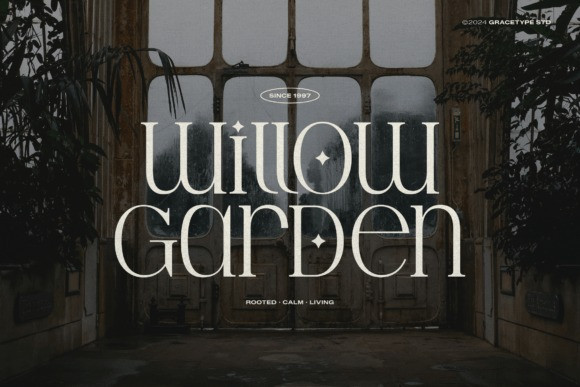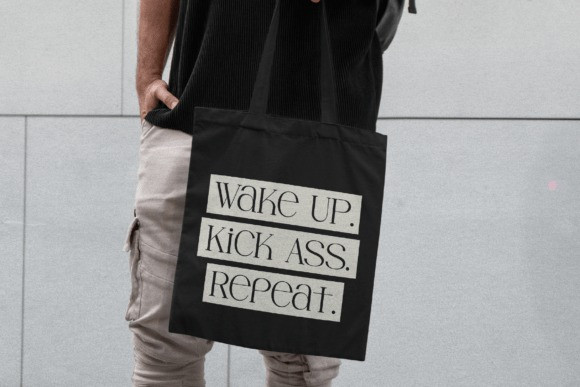
Hesay Verso Font
Hesay Verso Font is a masterclass in modern classicism, offering a high-contrast display serif that exudes elite sophistication.This Hesay Verso font is defined by its equal-height letters and sharp, razor-thin serifs that create a rhythmic, architectural feel. As a premium Hesay Verso typeface, it is specifically designed for high-fashion editorial spreads, luxury jewelry branding, and minimalist museum signage.
The Hesay Verso font comes alive when used for short, punchy headlines or sophisticated logotypes where every character serves as a work of art. You can enhance the Hesay Verso typeface by utilizing its extensive ligatures and alternates to create a truly bespoke visual identity.
It pairs exceptionally well with sleek, sans-serif body text and high-resolution photography to create a “haute couture” aesthetic that is both timeless and strikingly contemporary.